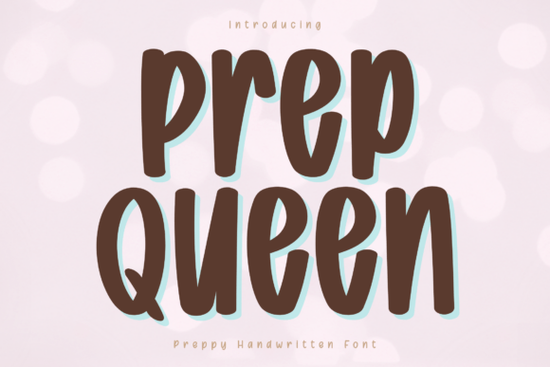
If you are looking for a typeface that balances bold personality with everyday readability, the Prep Queen Font is a fantastic choice for your next project. This handwritten style brings a clean, confident preppy vibe to the table without sacrificing legibility. Whether you are designing a new logo for a small business, putting together a digital planner, or cutting vinyl for a Cricut project, you need a script that looks modern but remains easy to read. That is exactly what this structured letterform delivers, giving your work a polished and professional finish.
What makes this handwritten style stand out for crafting and branding?
When you are creating products to sell or building a brand identity, the typography you choose speaks volumes before the customer even reads the words. This specific typeface uses smooth curves and consistent strokes to create a strong visual impact. Unlike some overly decorative scripts that are hard to decipher, this option keeps the letterforms structured and clear.
For print-on-demand sellers and crafters, this means your designs will look great on t-shirts, mugs, and tote bags. The bold weight ensures the text stands out against different background colors and textures. If you are exploring other options for your design toolkit, you might also want to check out the Perfect Relationship typeface for a slightly more flowing alternative, or the Megalyn script when you need something with a bit more elegance.
How well does it work for digital planners and social media?
Digital planners and social media graphics require typography that looks good on screens of all sizes. Because this font maintains excellent clarity, it works beautifully for Instagram quotes, Pinterest pins, and YouTube thumbnails. The modern handwritten look feels approachable and friendly, which is perfect for lifestyle bloggers and content creators.
When designing digital planner covers or stickers, you want a style that feels cohesive. The structured nature of these letters means they stack and align nicely, making layout design much simpler. If you are building a cohesive aesthetic for your social media, pairing this bold script with a clean sans-serif is a smart move. You can also mix it with the Blesh Forte lettering for varied emphasis in your templates.
Is it suitable for commercial projects and small business logos?
Yes, this typeface is crafted for both creative and commercial use, making it a reliable asset for small business owners. When you are designing a logo, you need a mark that is memorable but not distracting. The confident preppy vibe of this font works exceptionally well for boutiques, cafes, beauty brands, and stationery shops.
For commercial projects, consistency is key. The uniform stroke width ensures that your branding looks the same whether it is printed on a tiny business card or a large storefront sign. You can find the full Prep Queen files and licensing details directly on the marketplace. If you are putting together a brand board and need a few more script options to test different moods, the Simple Brittany style offers a softer touch, while the Golden Crumbs lettering can add a playful, bakery-friendly feel to your concepts.
What should I keep in mind when using this font for vinyl cutting?
Using handwritten fonts for vinyl cutting can sometimes be tricky if the letters have too many thin, fragile connections. Fortunately, the bold and consistent strokes of this design make it highly compatible with cutting machines like Cricut and Silhouette. The smooth curves and thicker lines mean your vinyl decals will weed easily and apply cleanly without tearing.
To get the best results when cutting vinyl, always make sure to weld your text and use the correct cut settings for your specific material. Thicker fonts generally require a slightly slower cut speed to ensure the blade catches all the edges perfectly. Remember to mirror your design before sending it to the cutter.
Quick checklist for your next design project
- Test readability: Always zoom out to 100% to ensure the text is easy to read from a distance.
- Check cutting settings: Do a small test cut on your vinyl before committing to a full design.
- Pair wisely: Combine this bold script with a simple, clean sans-serif for body text.